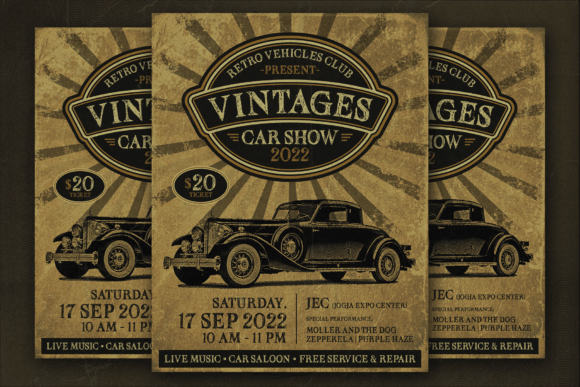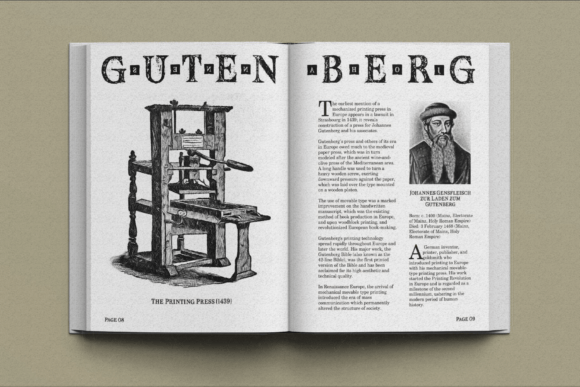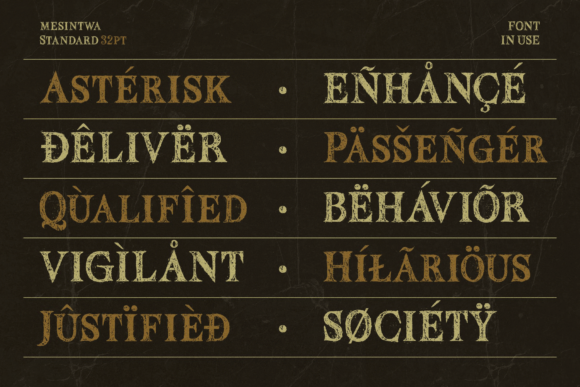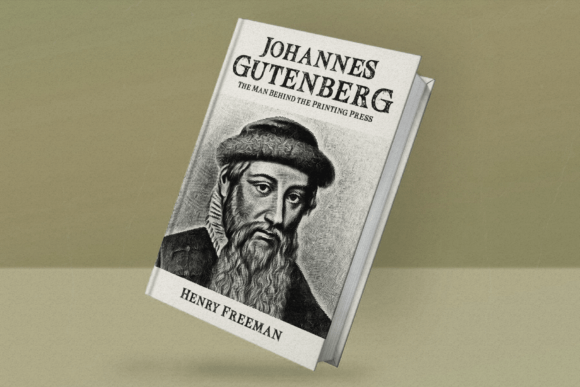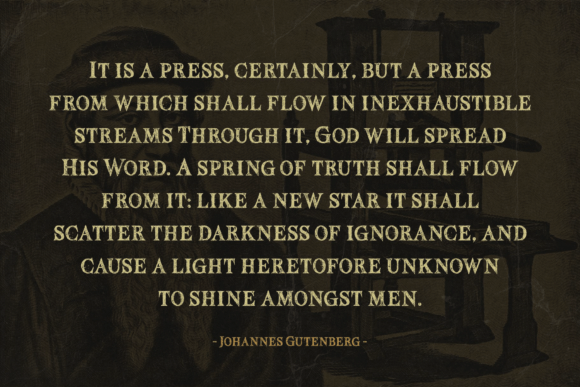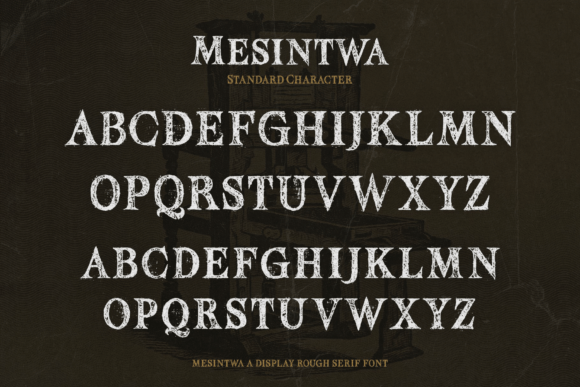
Introduction to Mesintwa Font
Mesintwa is basically a classic serif display font with a twist.
The letterpress effect will add a classy, vintage accent to any design you wish to create .
Key Features of Mesintwa Font